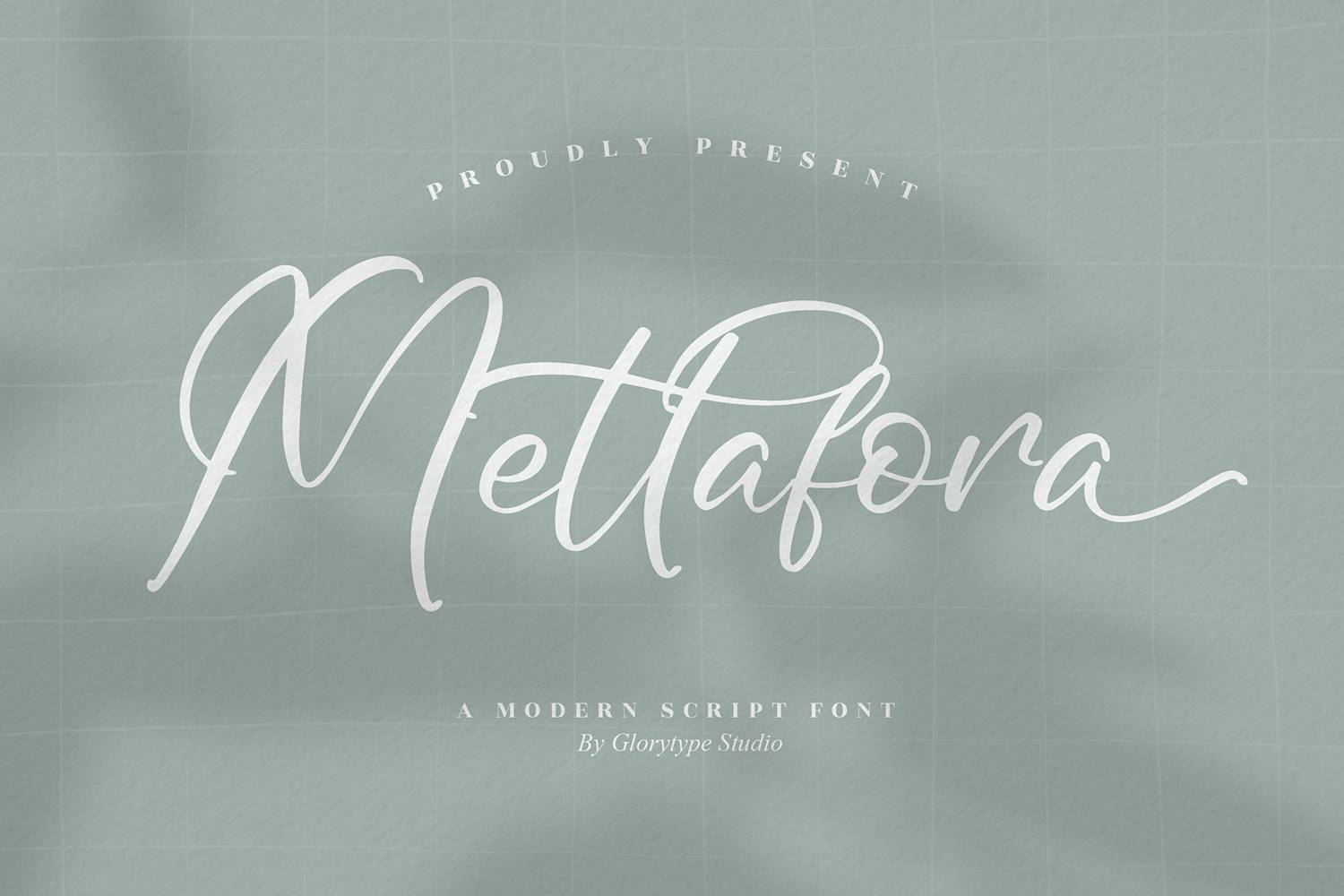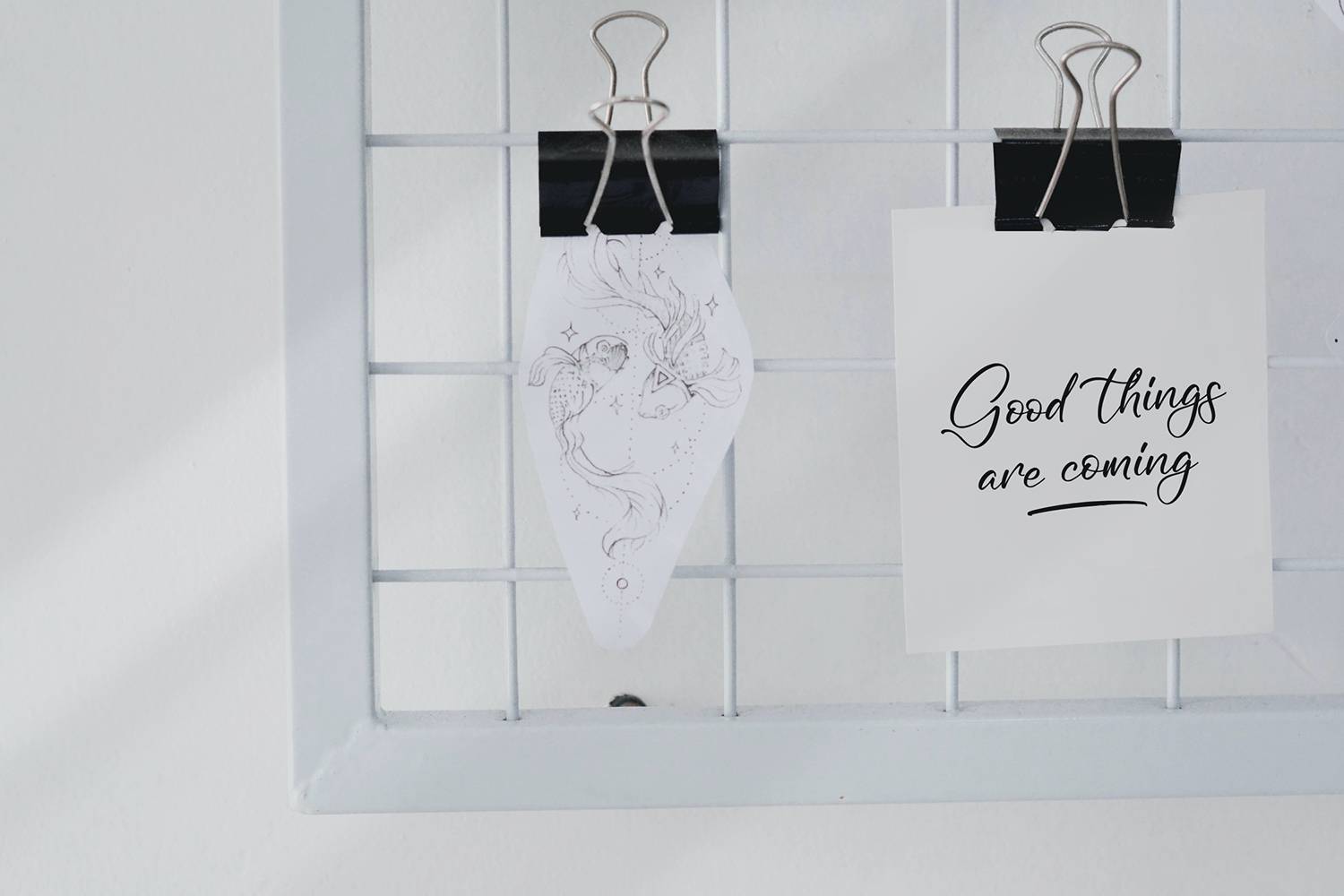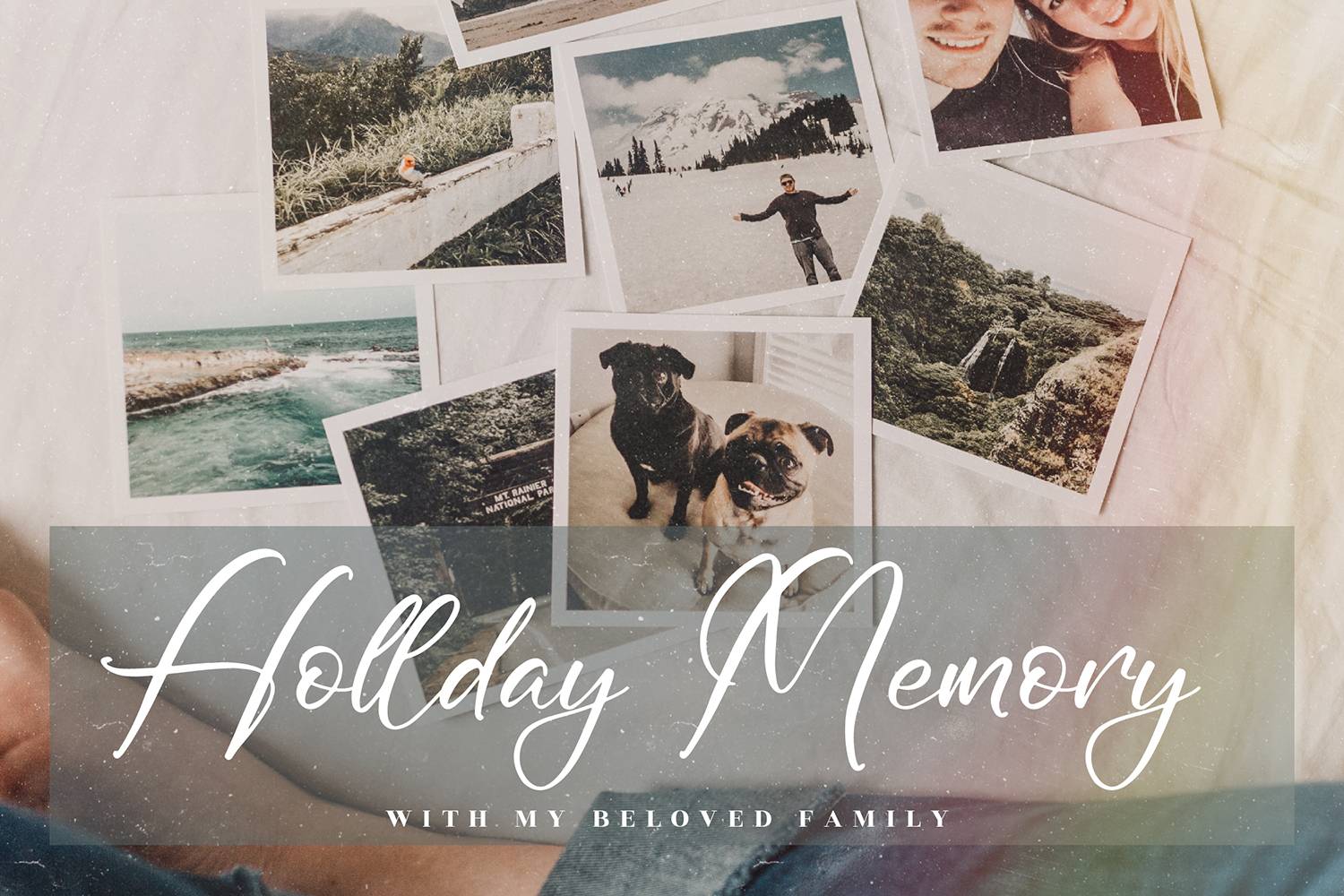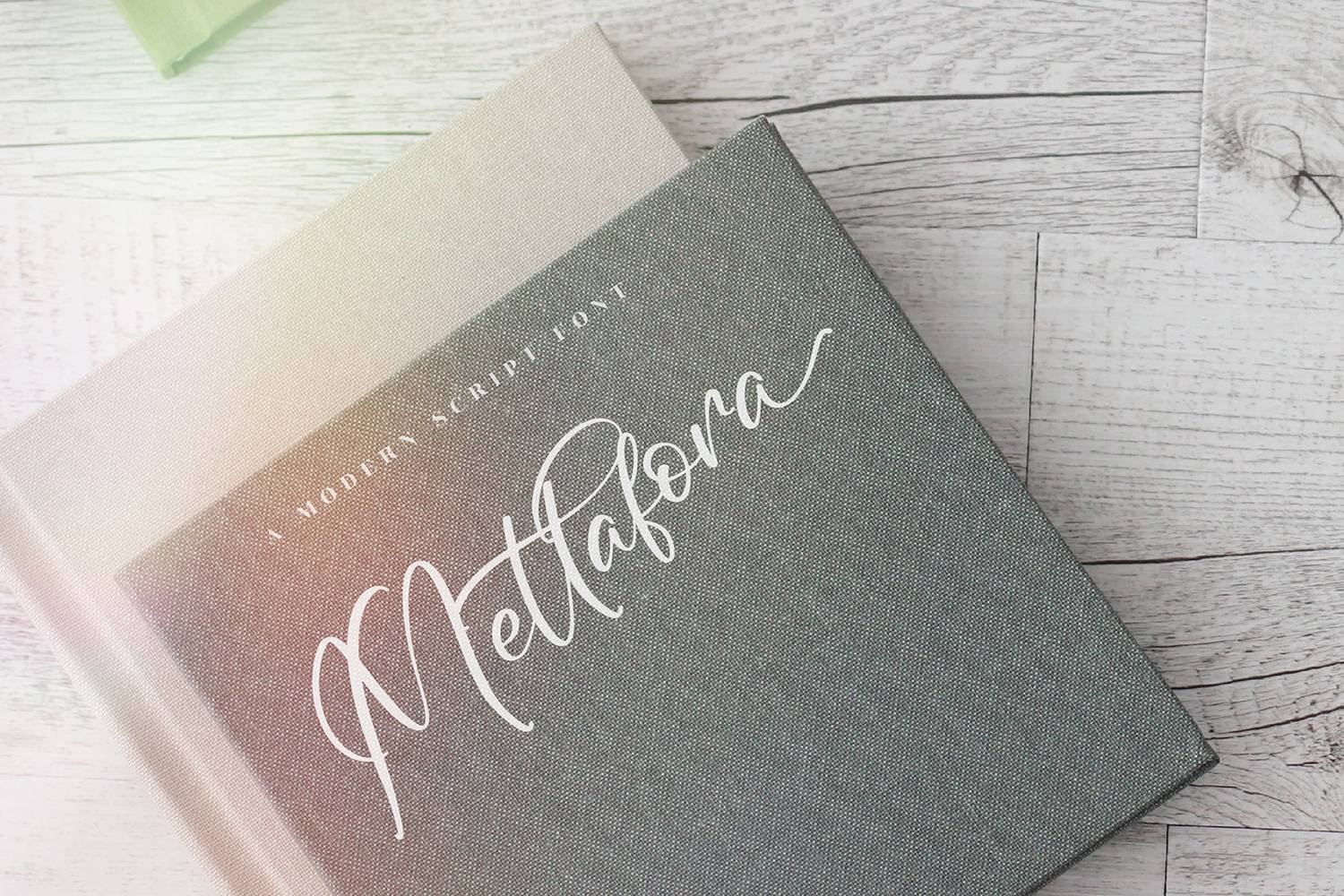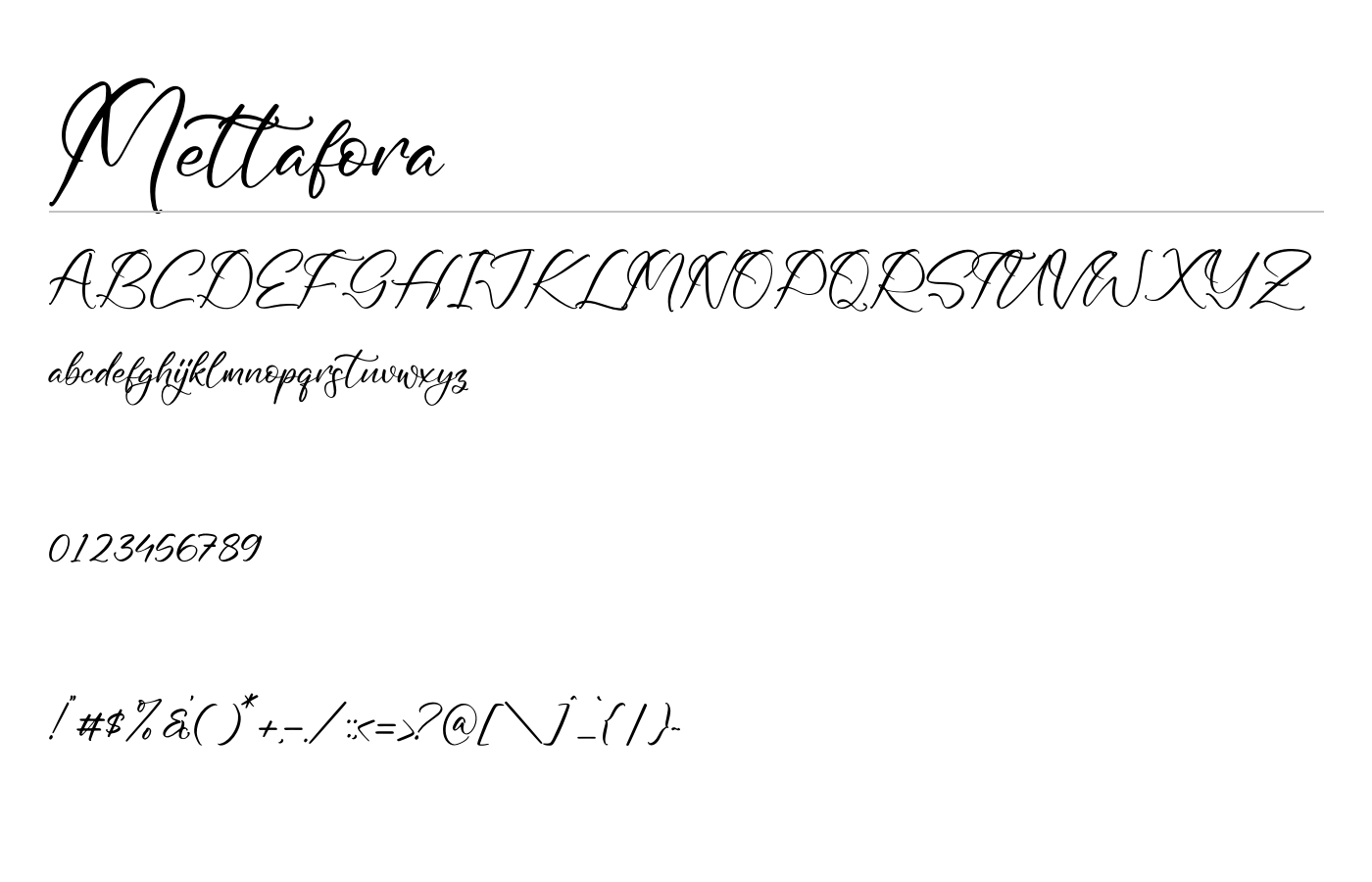
Mettafora is an elegant script font that combines delicate, flowing strokes with a refined calligraphic style, featuring both uppercase and lowercase letters that convey a graceful, handwritten feel. Its slender lines and high contrast create a sophisticated and artistic appearance, making it ideal for luxury branding, invitations, and stylish editorial design where a touch of elegance and personality is desired. This font works best in display settings, such as logos and headlines, where its intricate details can truly shine.
Mettafora Font
About Mettafora Font